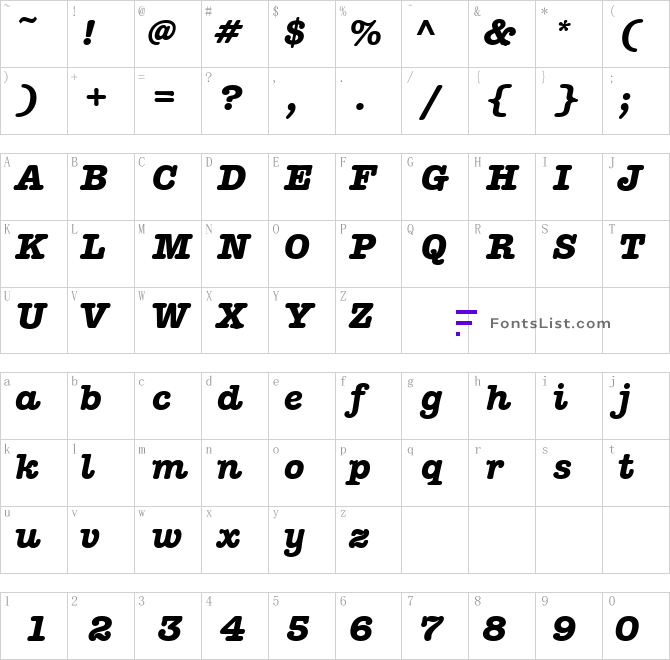
AmericanTypItcTEEBol-Italic.ttf is a very beautiful artistic font, AmericanTypItcTEEBol-Italic.ttf is widely used in the design and printing of various books and pictures,AmericanTypItcTEEBol-Italic.ttf has a strong visual impact,AmericanTypItcTEEBol-Italic.ttf is a commonly used font in newspapers, magazines and books, and is used in posters, e-commerce Poster design, store design, logo design, font design and other fields.AmericanTypItcTEEBol-Italic.